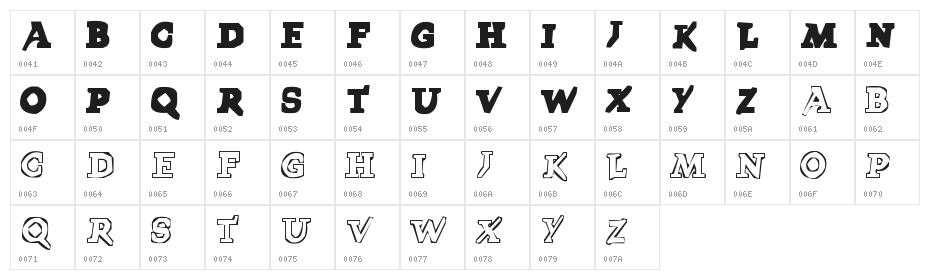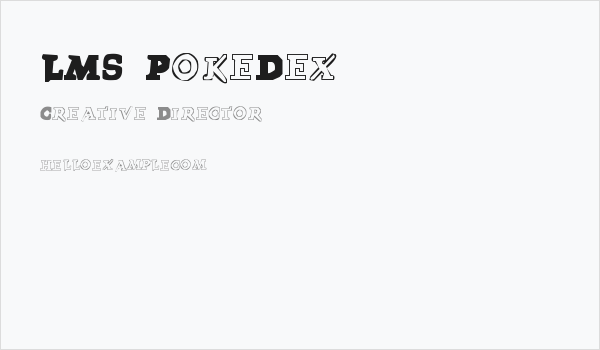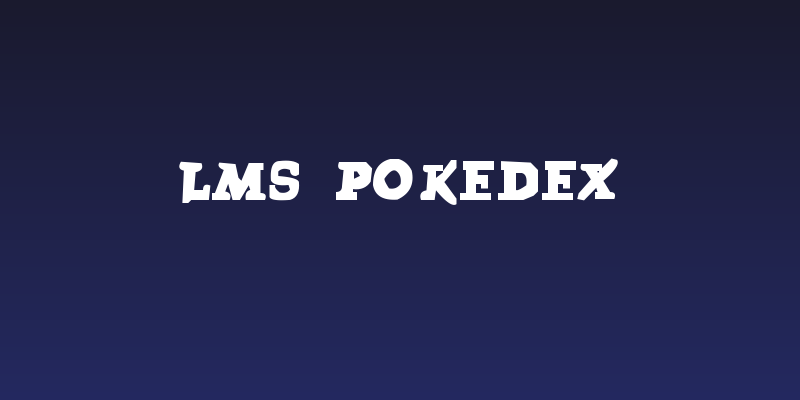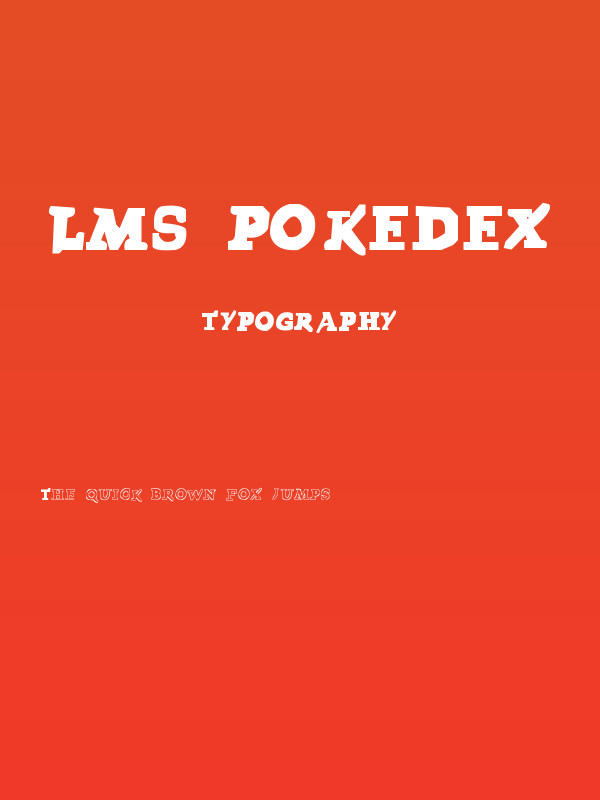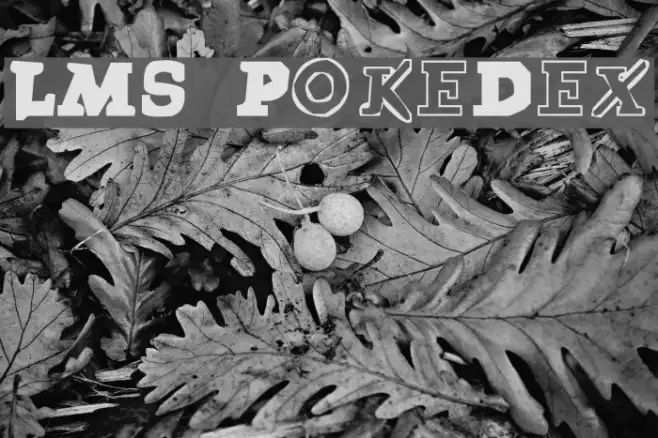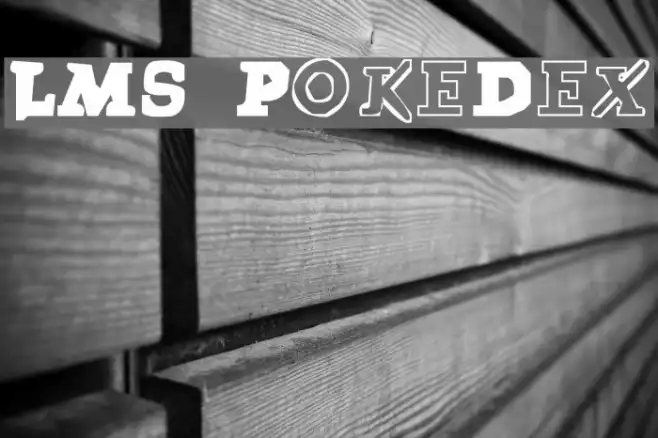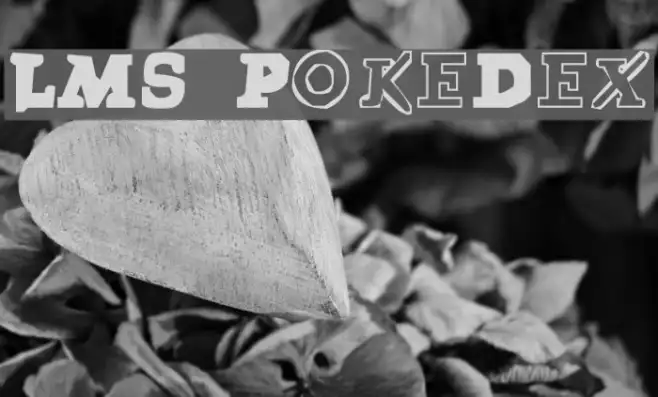
LMS PokeDex Font
LMS PokeDex Description
This font features bold, angular characters with a playful and adventurous style. The uppercase letters are designed with strong, thick lines and sharp edges, giving them a dynamic and energetic appearance. The font has a unique, slightly retro feel, reminiscent of classic video game aesthetics. It includes both filled and outlined versions, adding versatility to its use. The characters are well-spaced, ensuring readability while maintaining a distinctive look. This font is ideal for projects that require a bold and eye-catching typeface with a touch of nostalgia.
| Overall Style | Retro, Playful |
| Proposed Projects | Ideal for gaming logos, posters, merchandise, and themed event materials. |